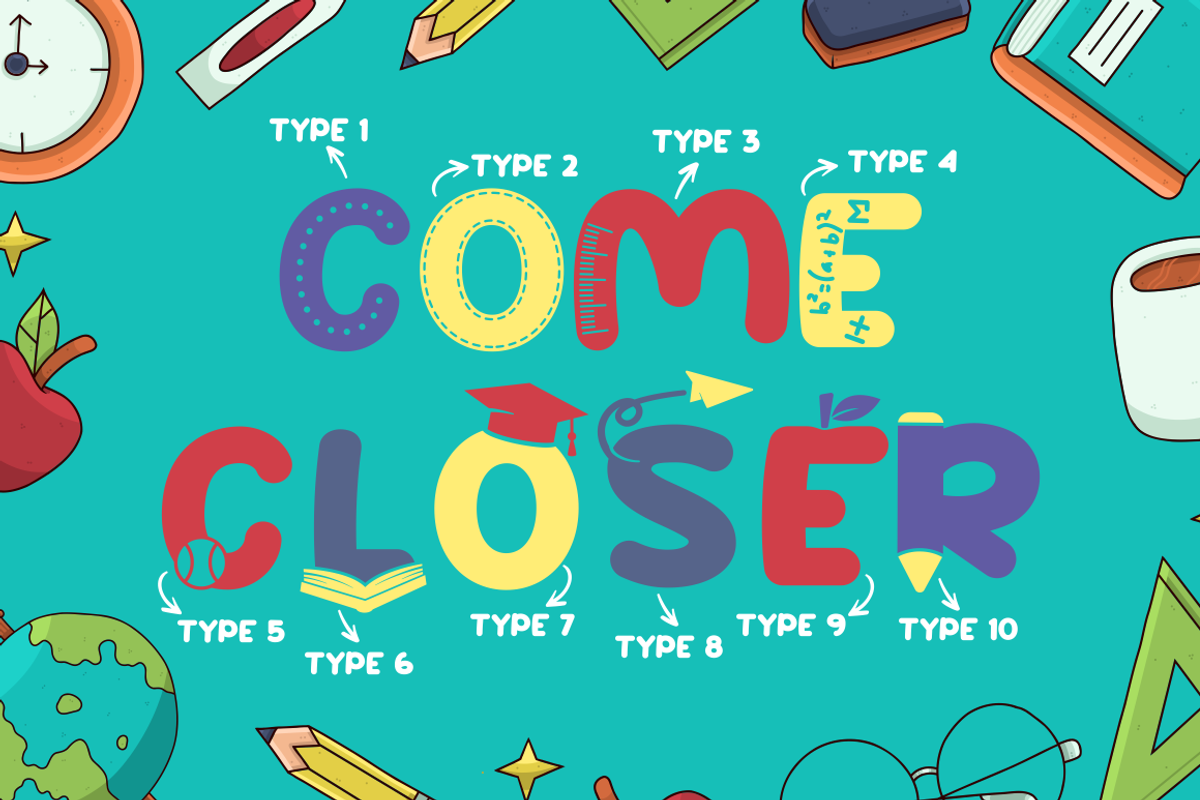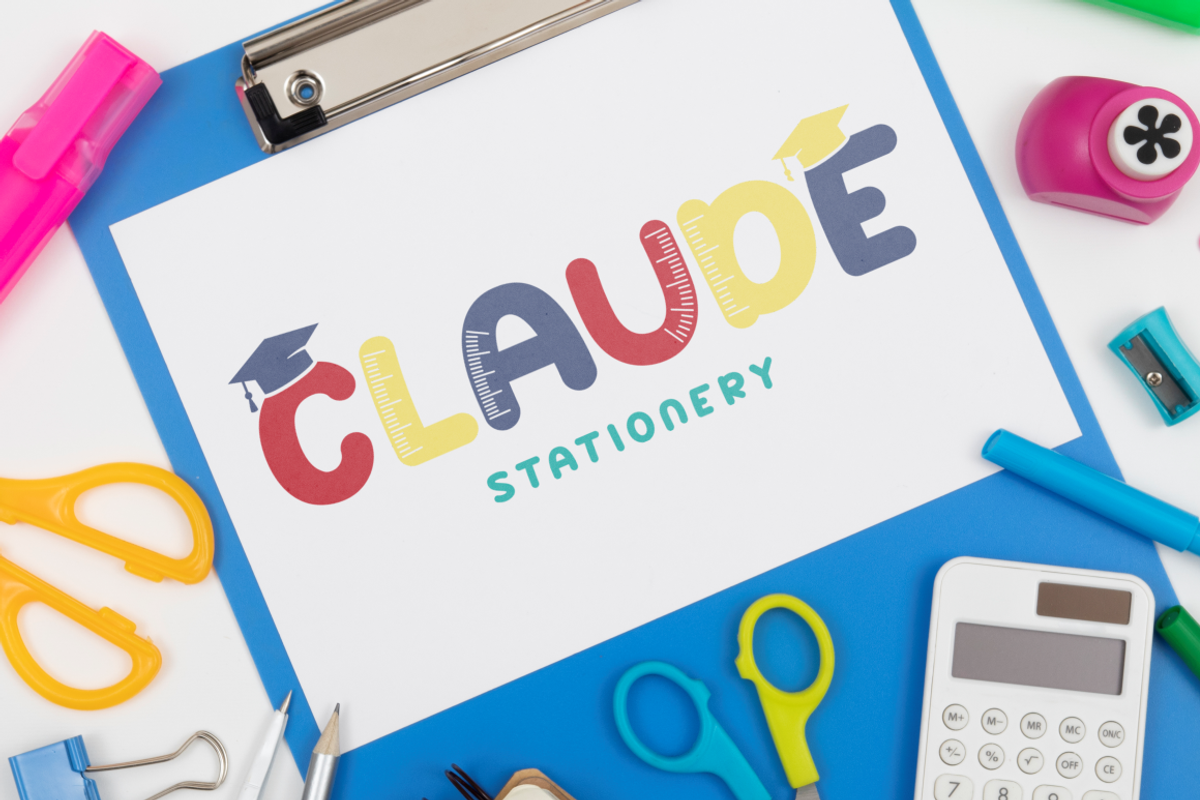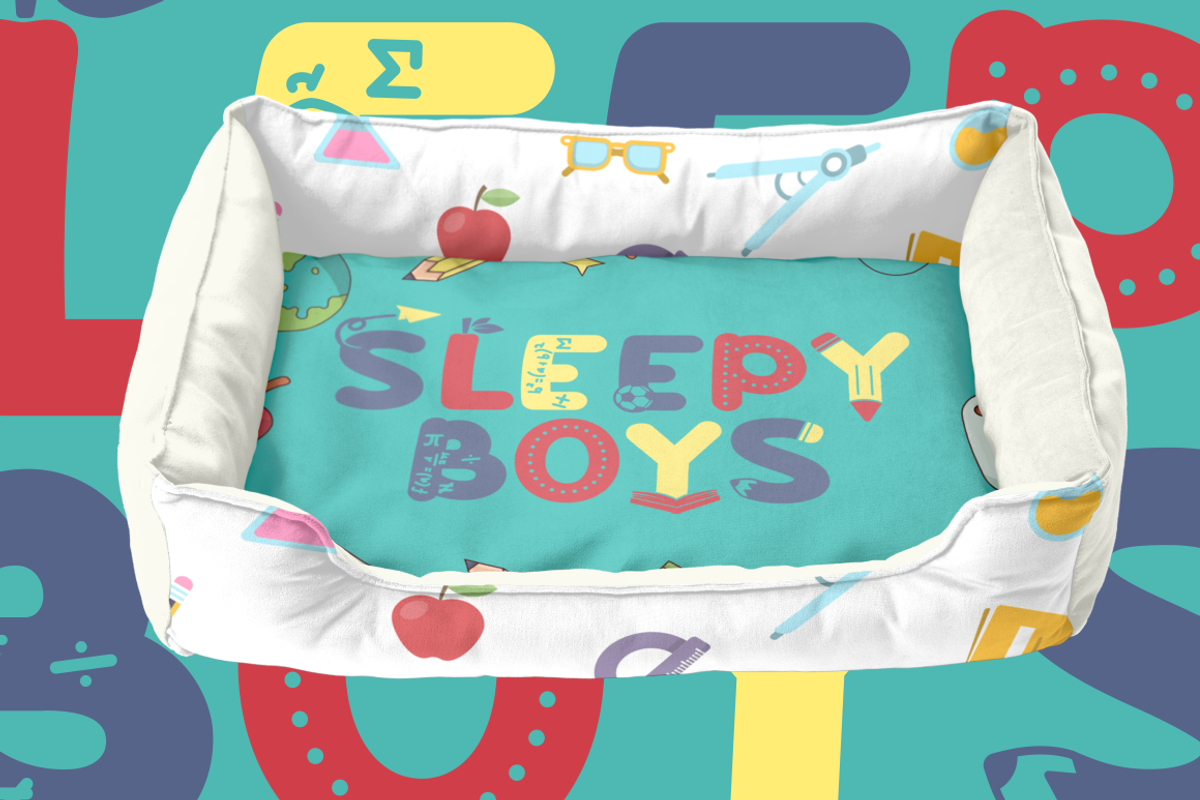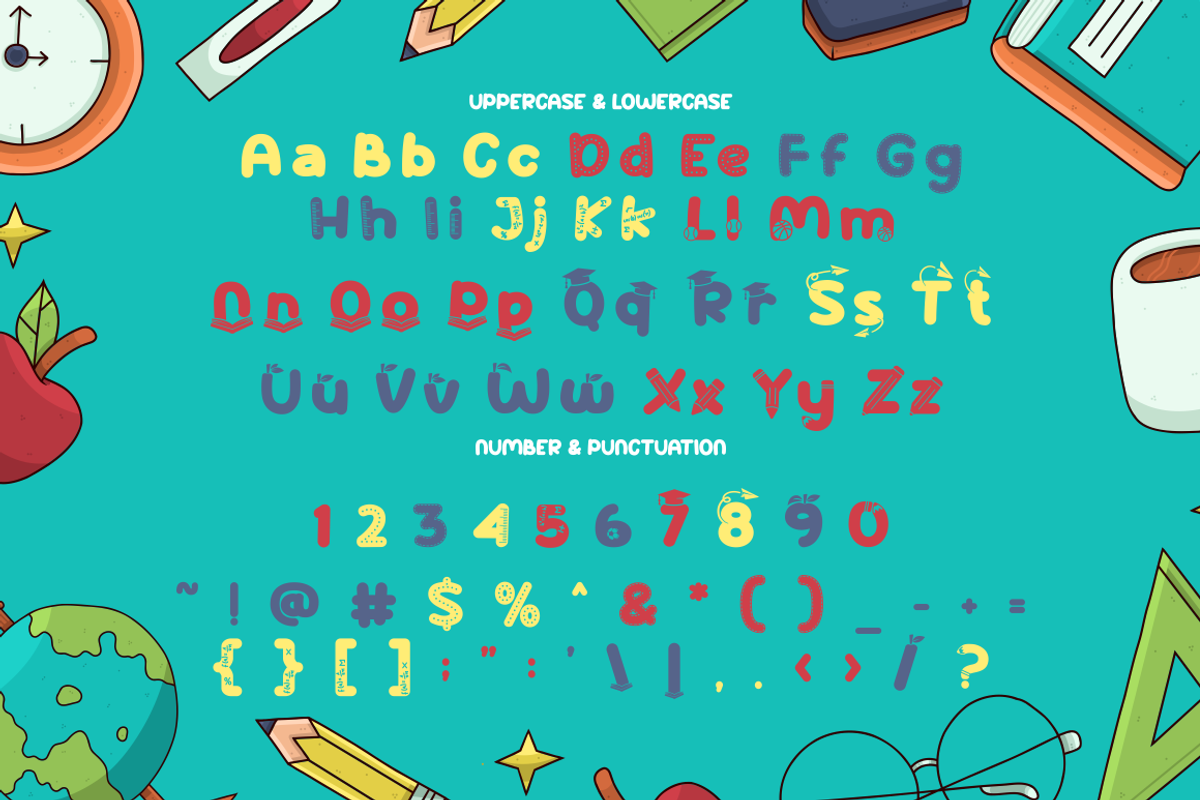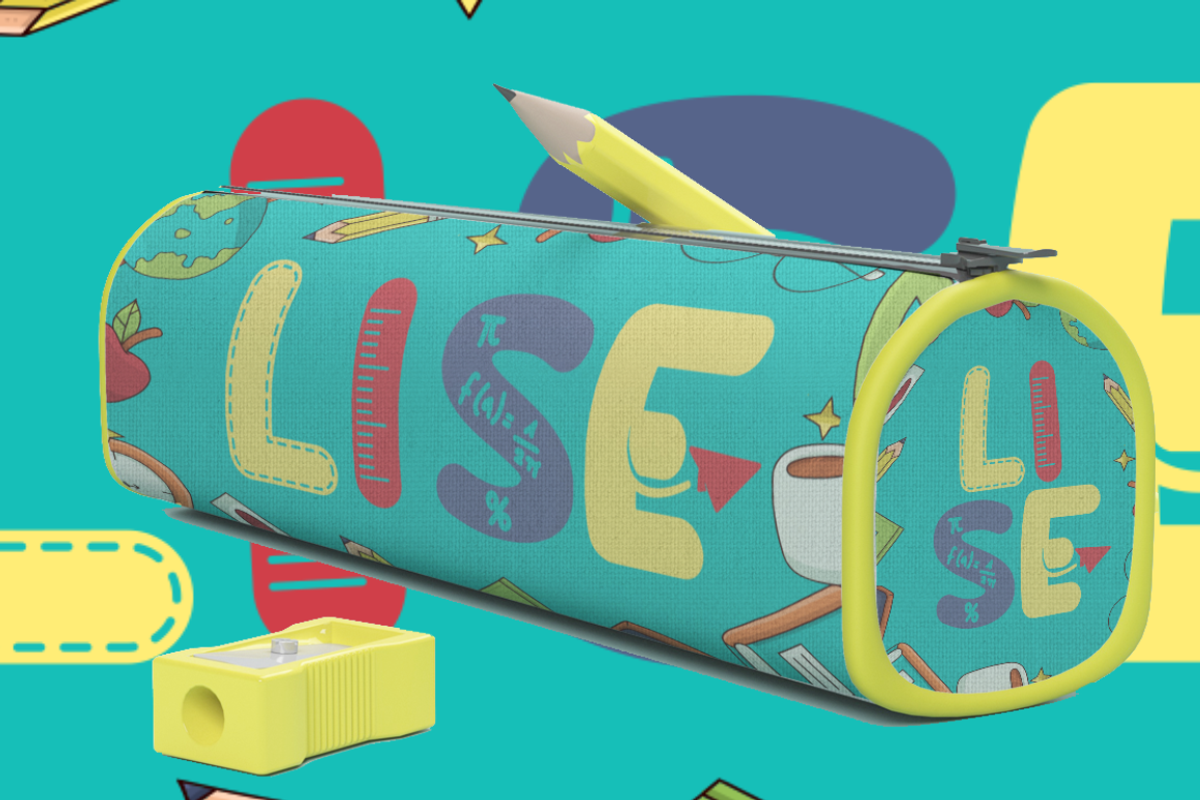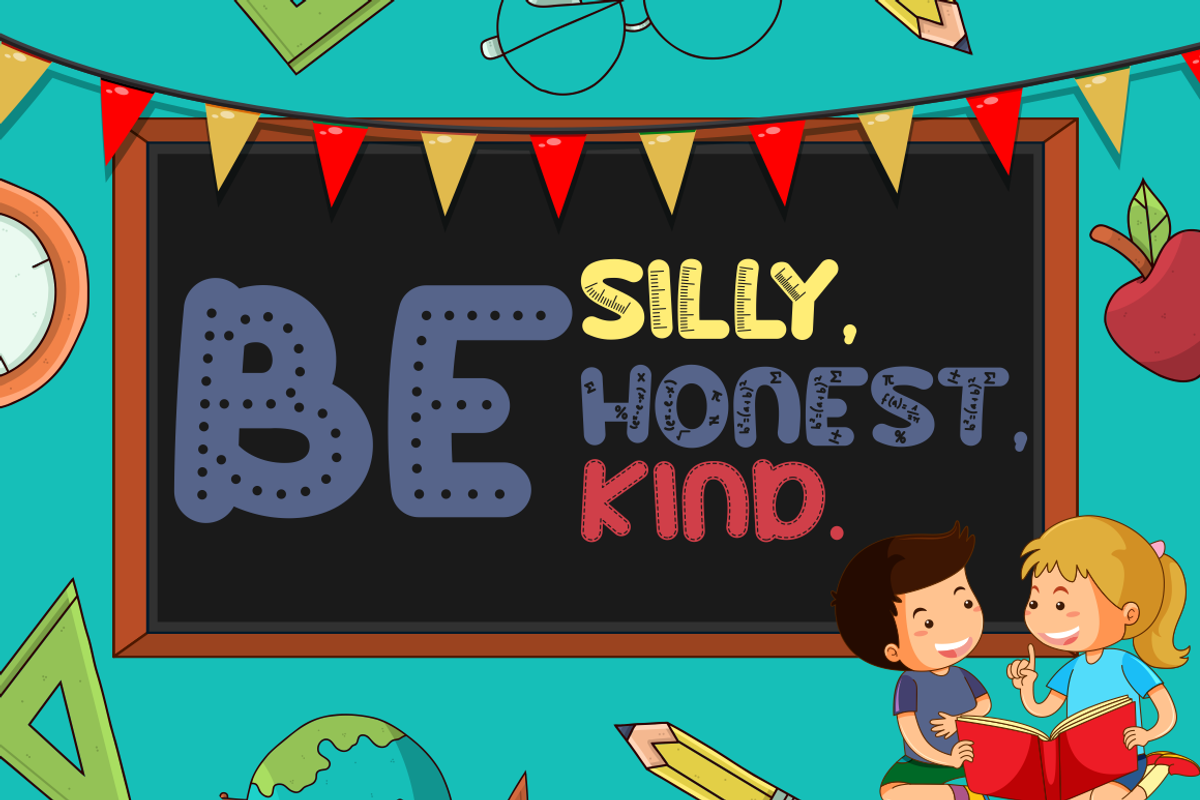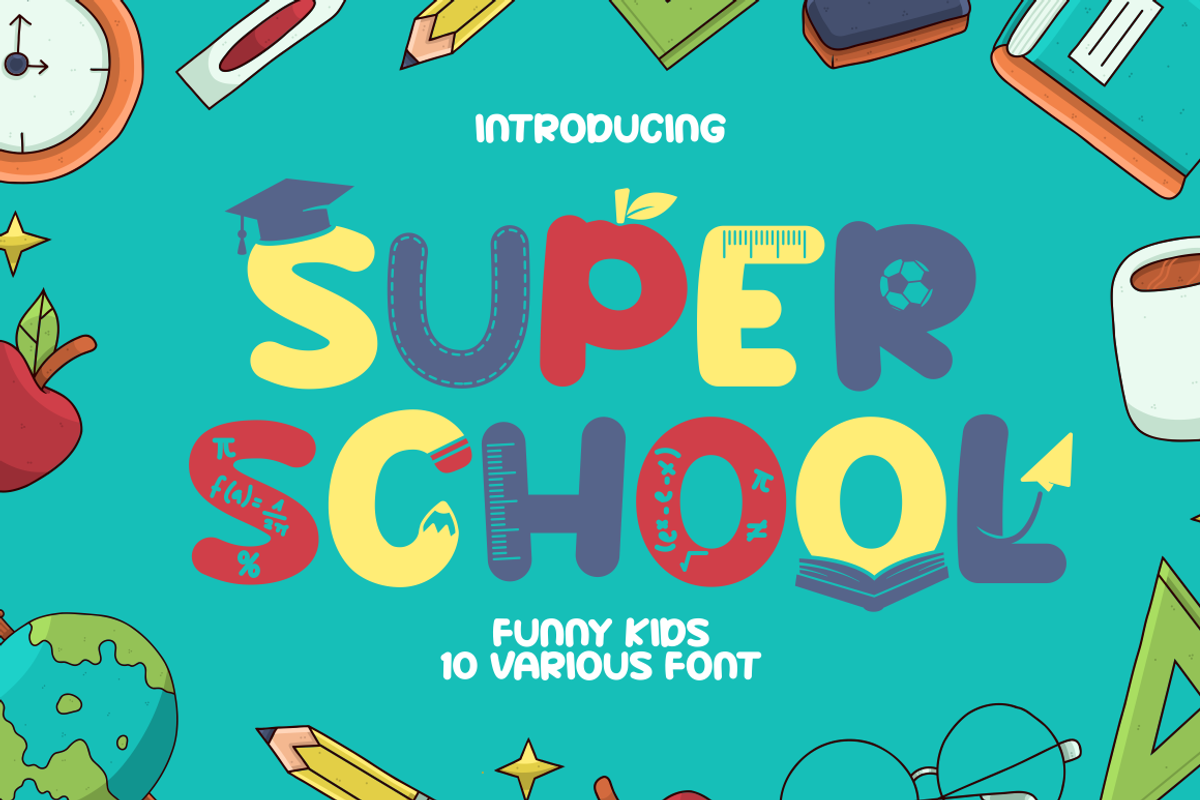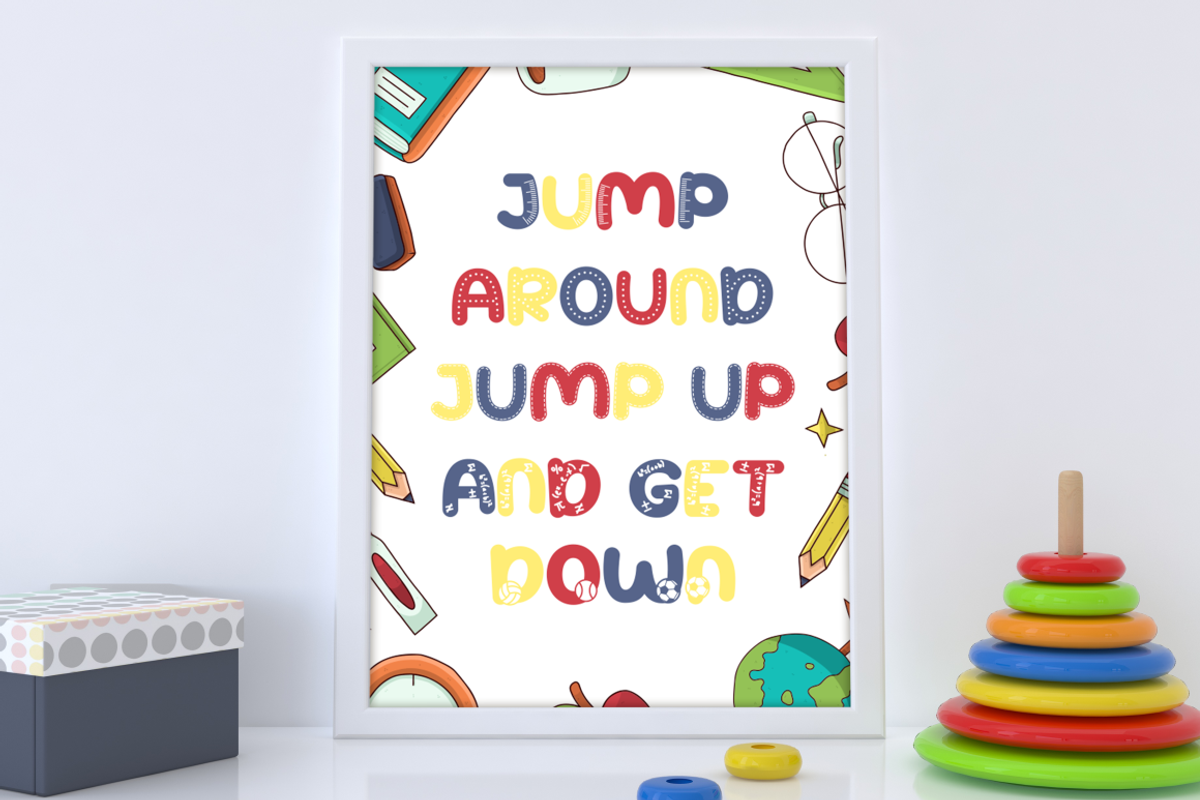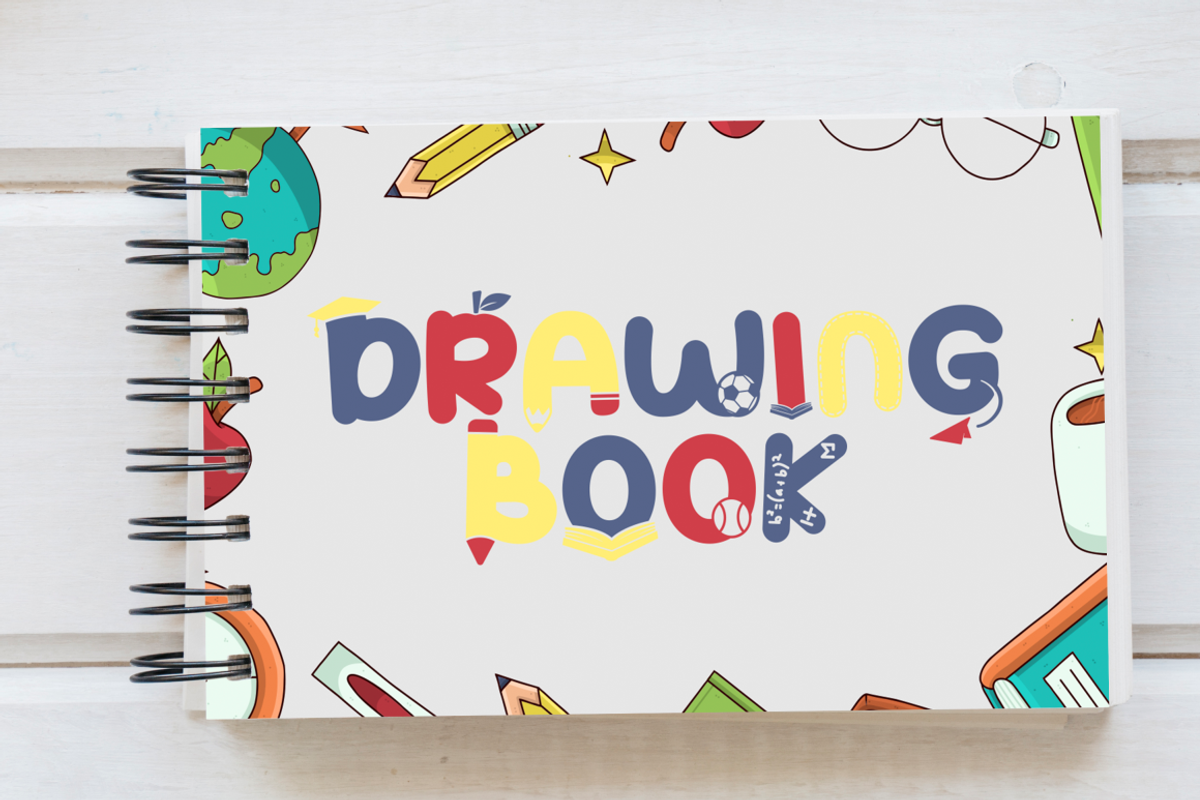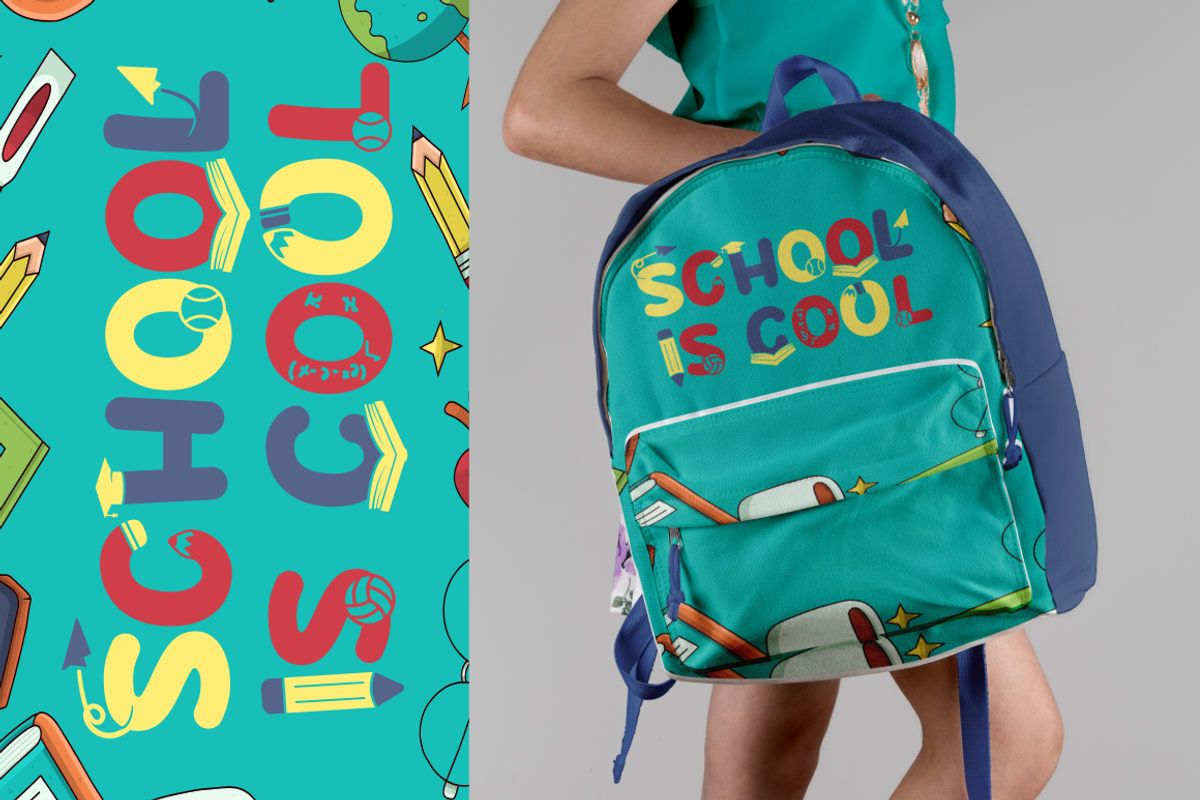
Super School - Funny Kids 10 Various
Super School - Funny Kids 10 Various Font is a delightful and quirky display font with a school and kids' theme. This font embodies a playful and fun spirit with its rounded and bold letterforms, making it perfect for designs aimed at children and school-related projects. It features 10 alternative font versions, each inspired by various school-related motifs, including dots, stitches, rulers, math symbols, balls, books, graduation caps, paper planes, apples, and pencils.
Crafted with a specific focus on the school theme, Super School is the go-to choice for designs revolving around education, kids, and toddlers. Whether you're creating educational materials, posters for school events, or any project targeting young audiences, this font adds a whimsical and child-friendly touch to your work.
With its crafty and playful style, Super School helps you infuse a sense of joy and learning into your creative endeavors, making them engaging and delightful.